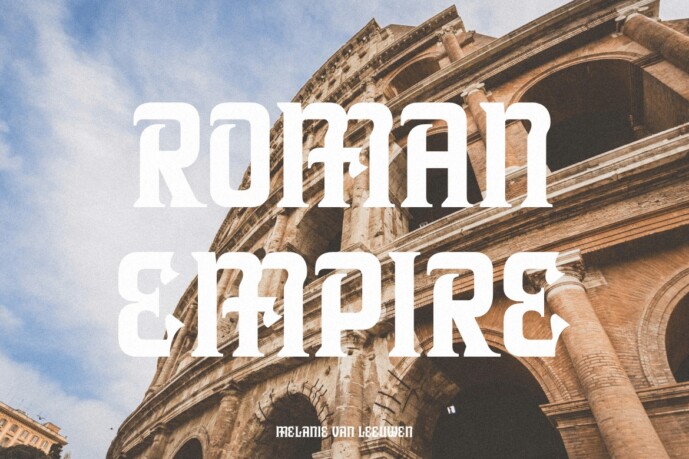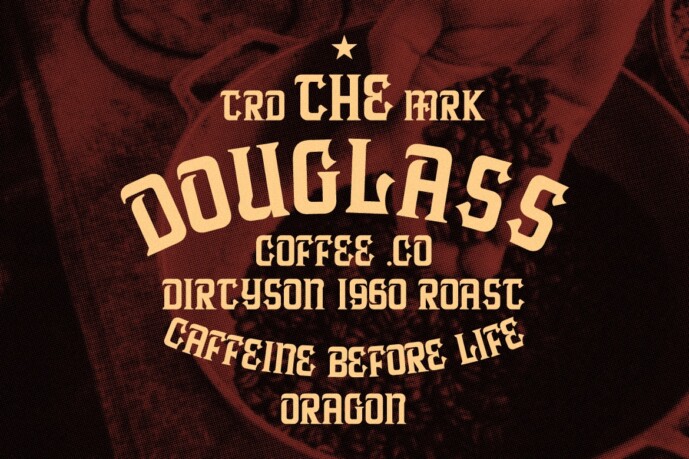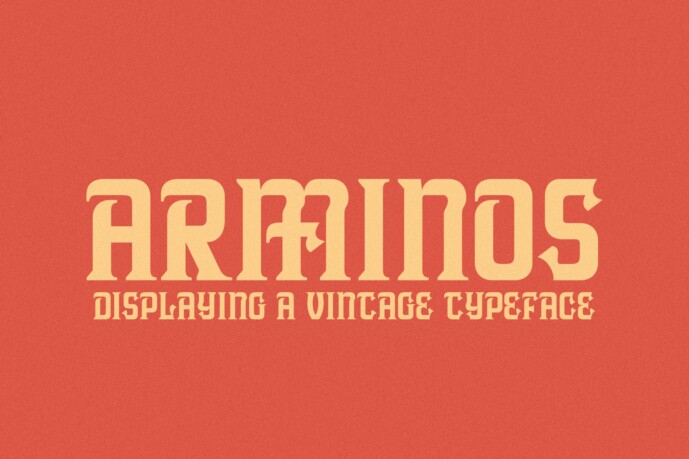
Arminos Font
Arminos Font is a vintage serif font, inspired by old school Victorian font, with a strong and dynamic modern touch. In addition, this font brings luxury to use in your design. This font is perfect for labels, signage, ads, tattoo logos, craft brands, anything related to vintage style, etc.